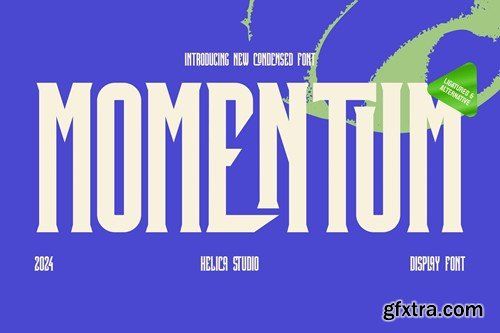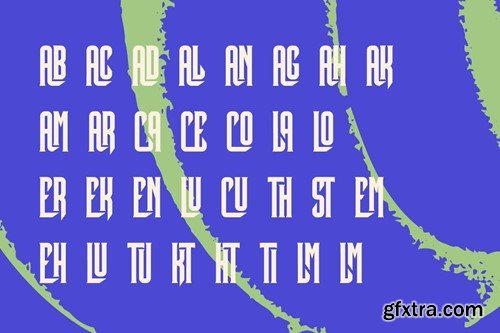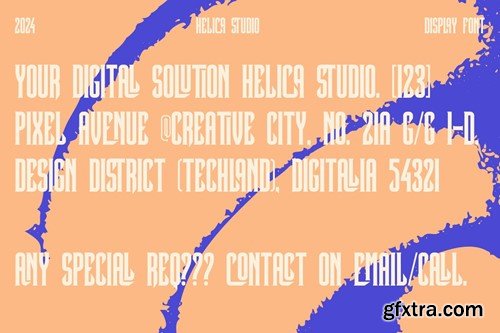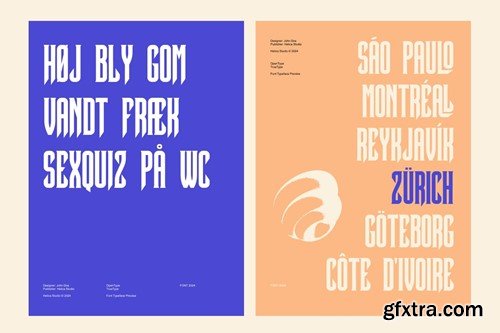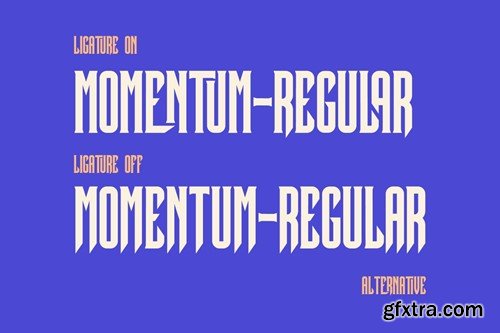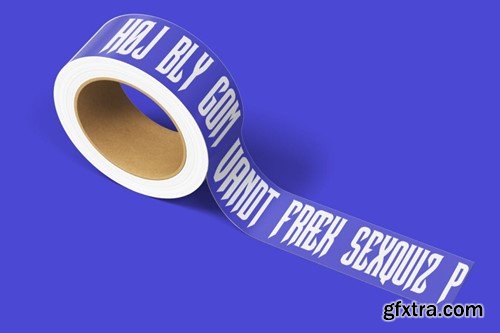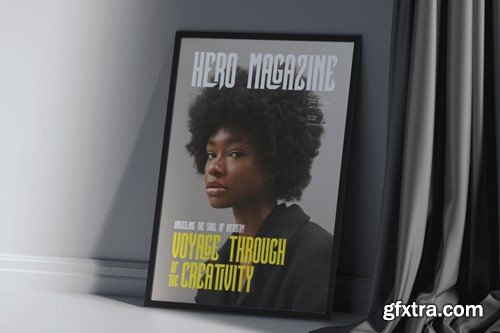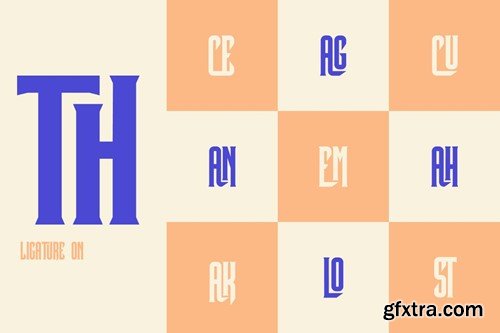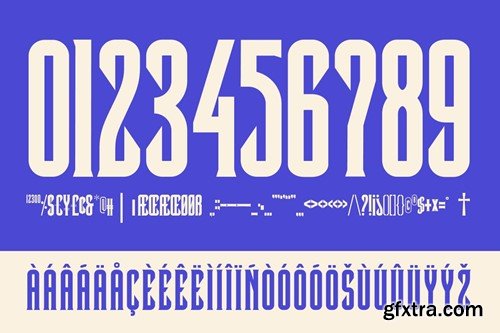
Momentum Condensed Display Font
Momentum Condensed Display Font typeface is perfect for crafting elegant quotes, stunning logos, captivating magazine headers, and so much more.
Main Features
• All Uppercase
• Ligatures & Alternate
• Numeral & Punctuations